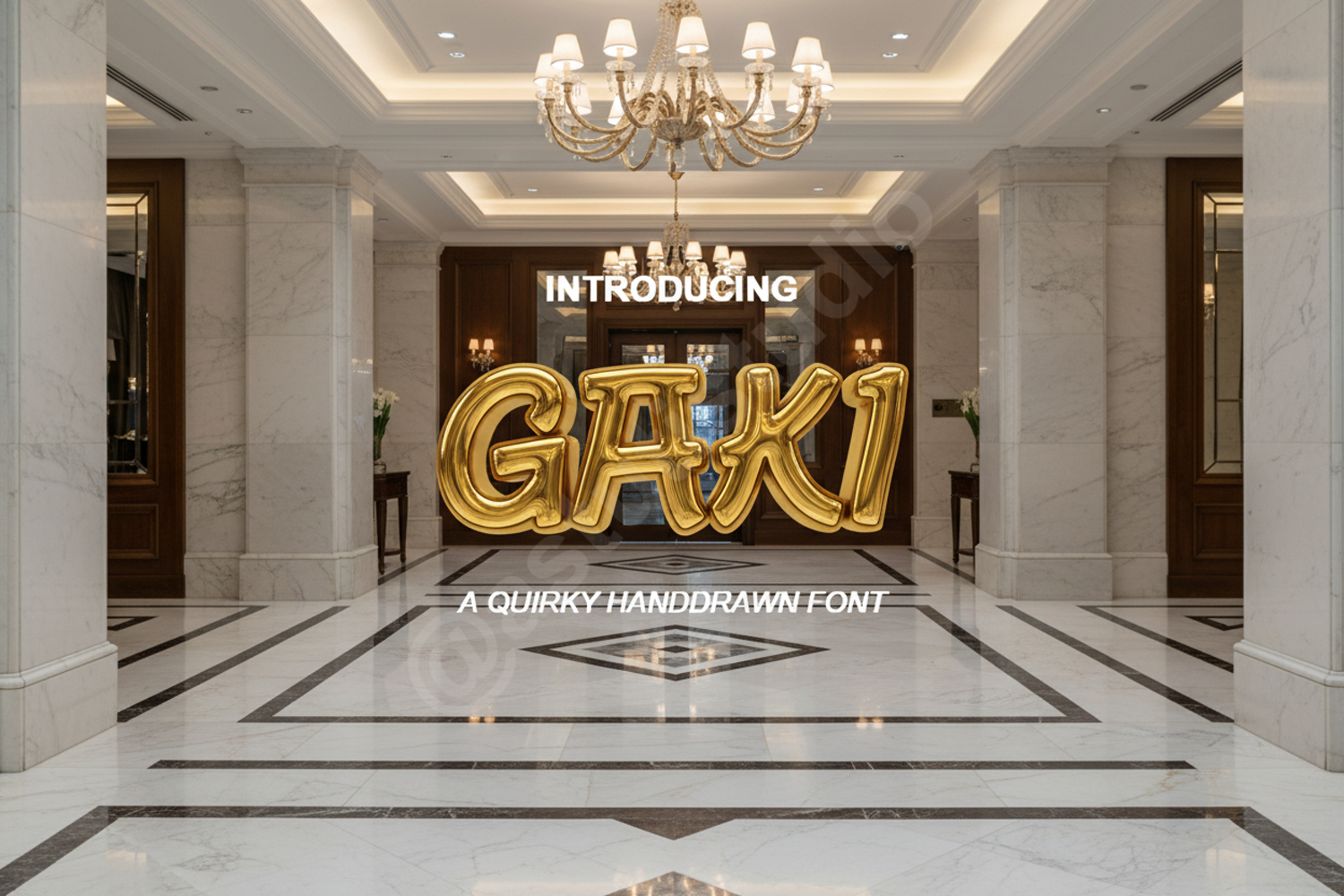
Gaki - Modern Bold Display Font
Gaki
Gaki is a premium display font meticulously crafted to bring a bold and contemporary edge to your creative projects. Designed with a focus on impact and legibility, Gaki combines clean geometric lines with unique character details that make it stand out in any composition. Whether you are working on a high-end corporate identity or a trendy social media campaign, this font provides the professional polish your work deserves.
- Branding and Logo Design: Create powerful and memorable brand identities.
- Print Media: Perfect for high-impact posters, magazine headlines, and flyers.
- Digital Content: Elevate your website headers and social media graphics.
- Product Packaging: Add a sophisticated and modern touch to labels and boxes.
- Apparel Design: Ideal for bold statements on t-shirts and merchandise.